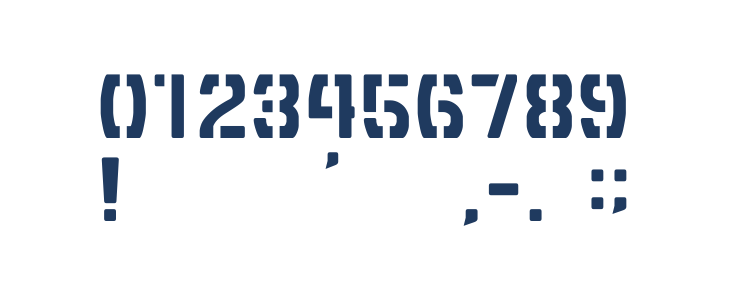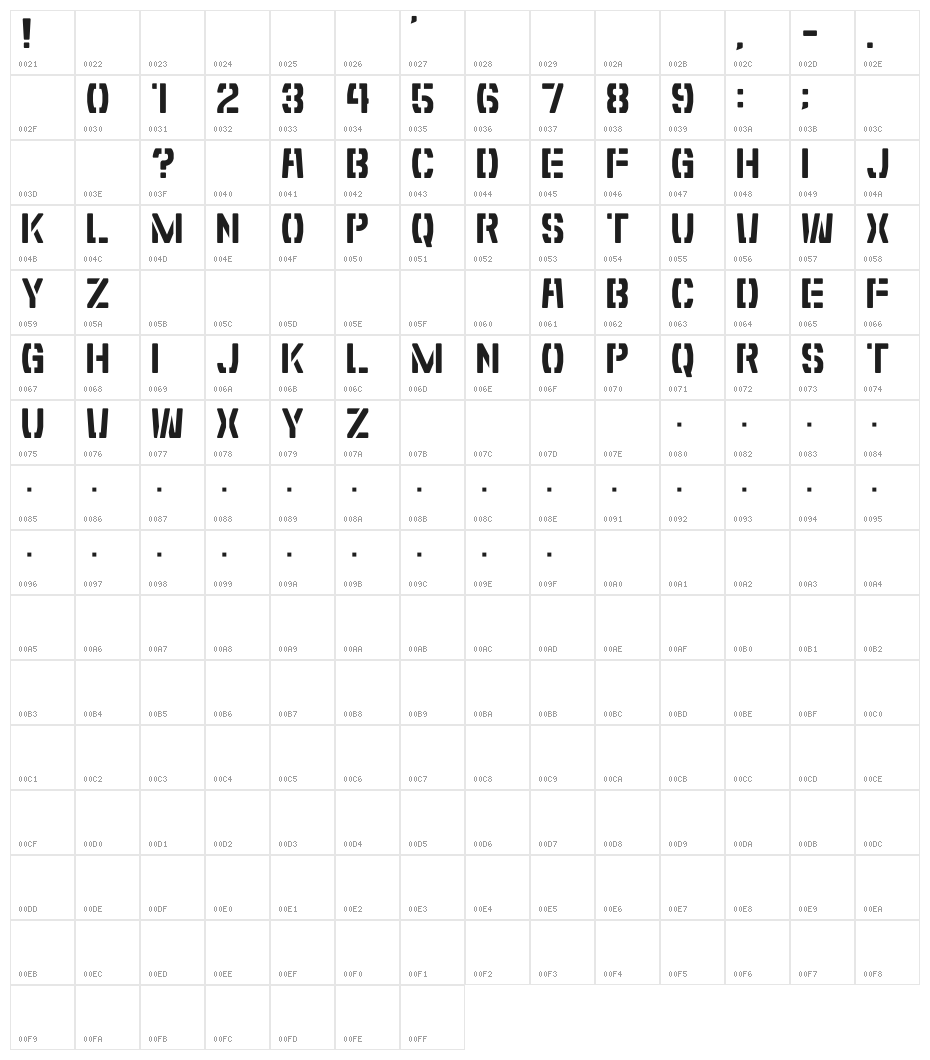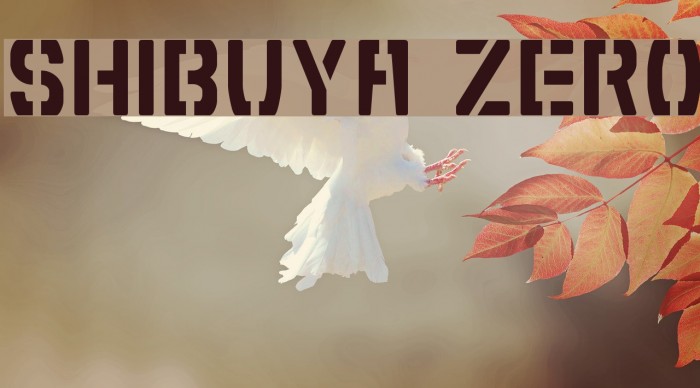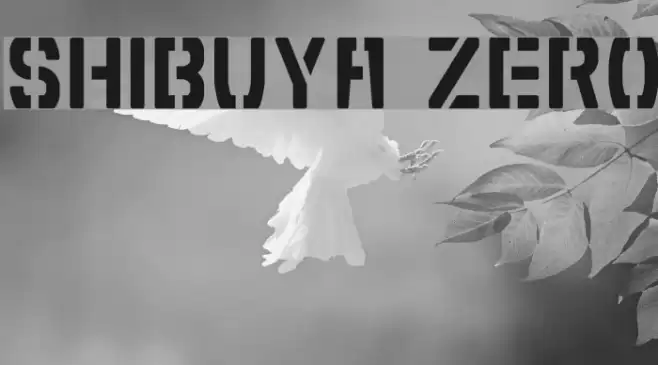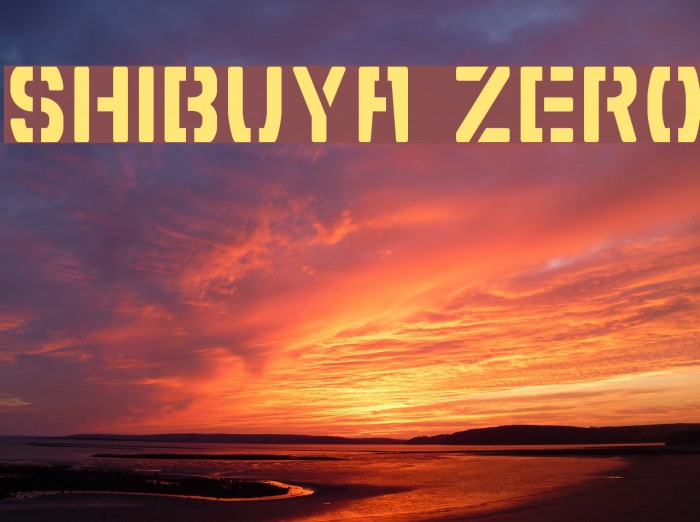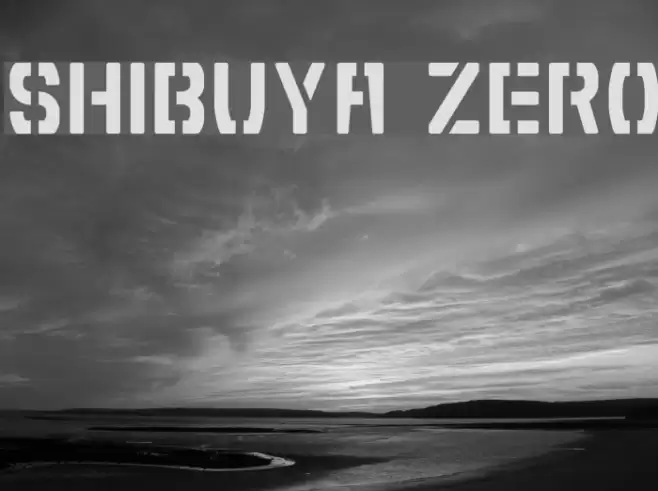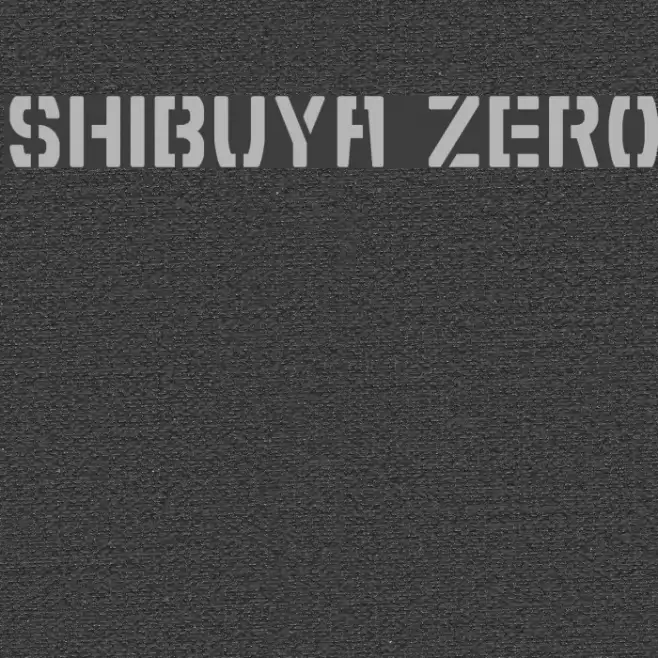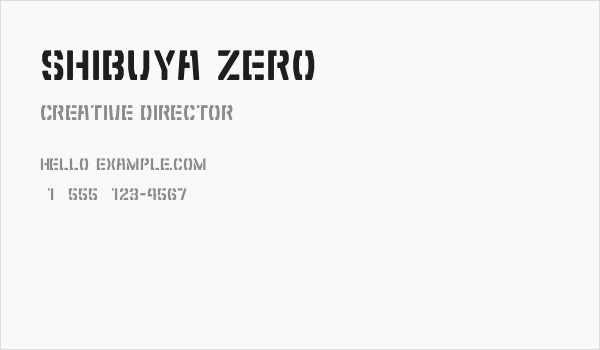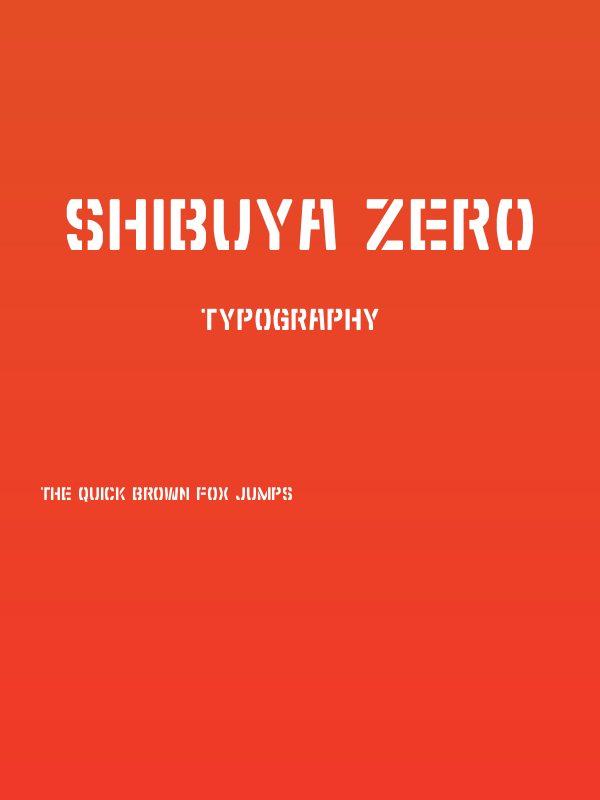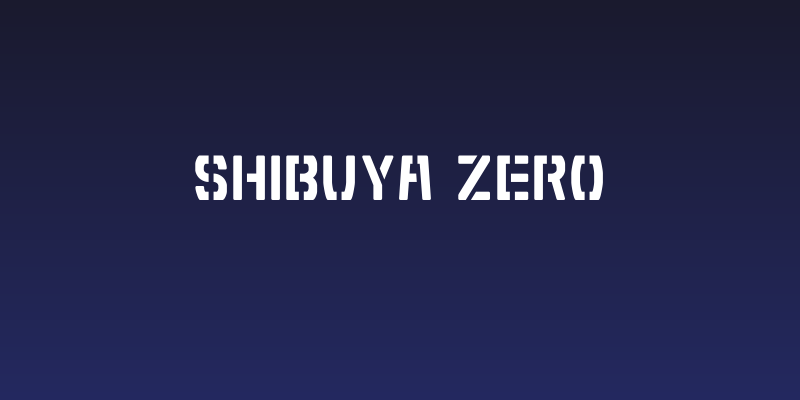
Shibuya Zero Font
Shibuya Zero Description
This font features a bold, geometric design with a stencil-like appearance. Each character is constructed with strong, angular lines and distinct cutouts, giving it a modern and industrial feel. The uppercase letters are uniform in height, while the lowercase letters maintain a consistent style, enhancing readability. The numerals and special characters follow the same design principles, ensuring a cohesive look across all elements. This font's unique style makes it stand out, ideal for projects that require a bold and impactful visual statement.
| Proposed Projects | Ideal for branding, posters, signage, and any project needing a strong, modern impact. |